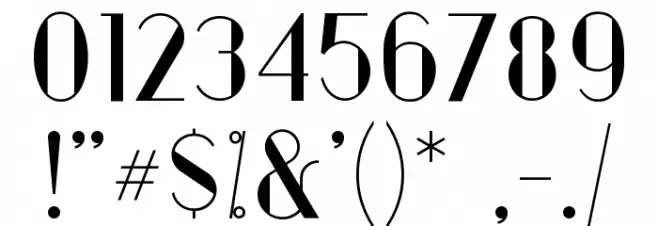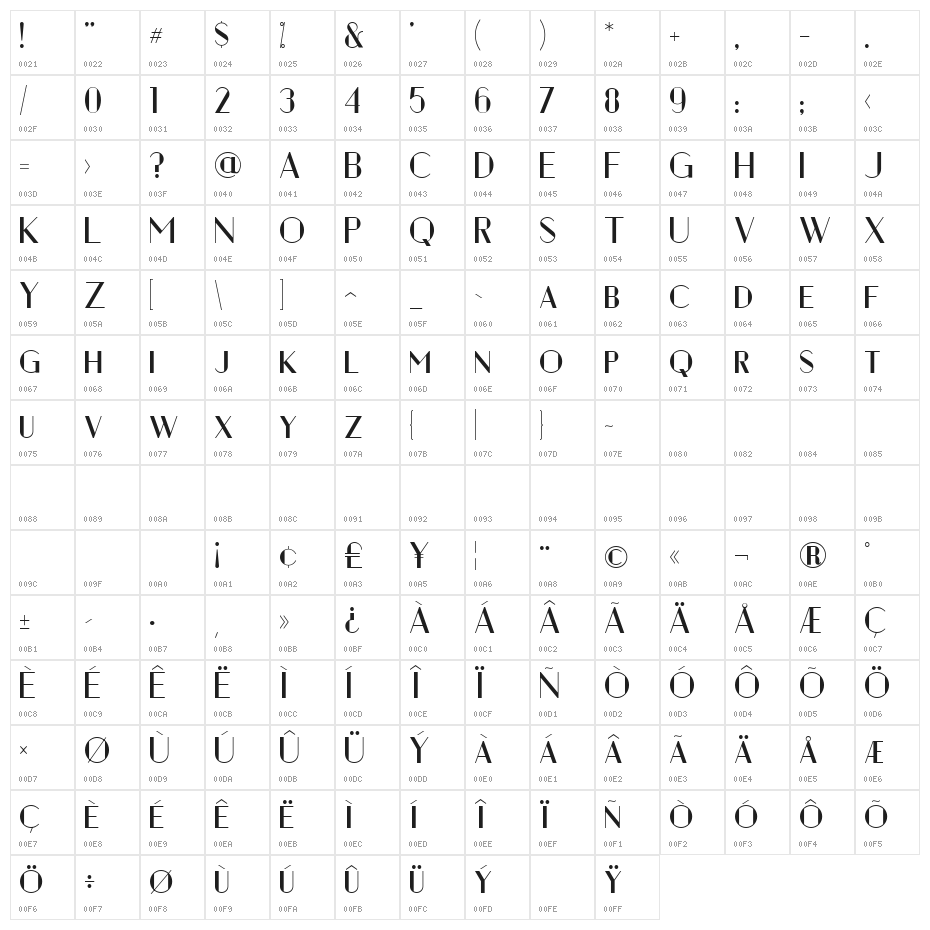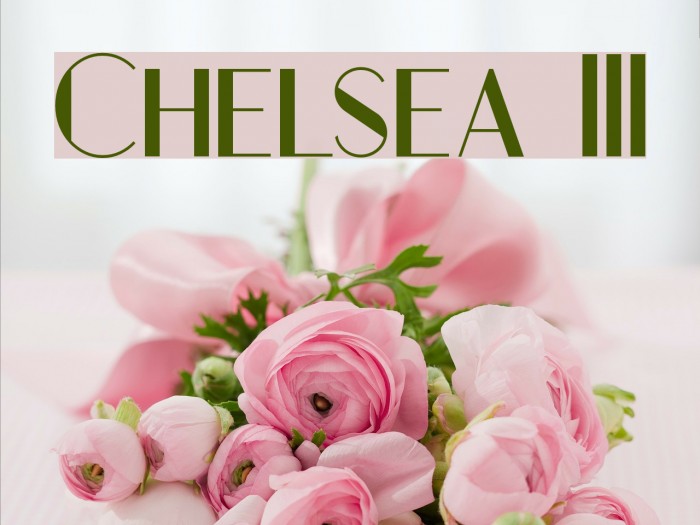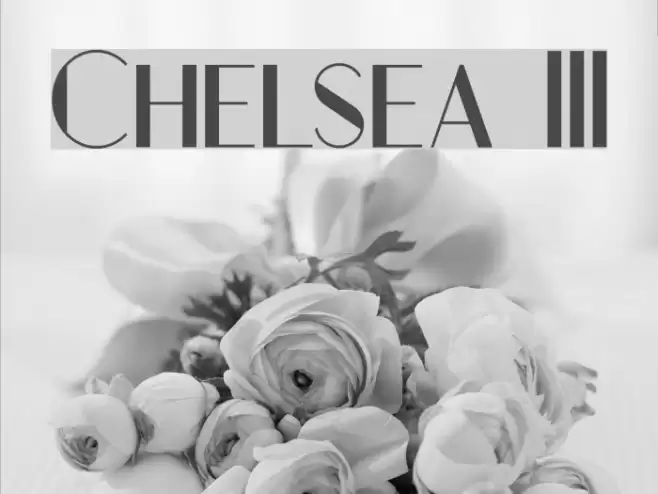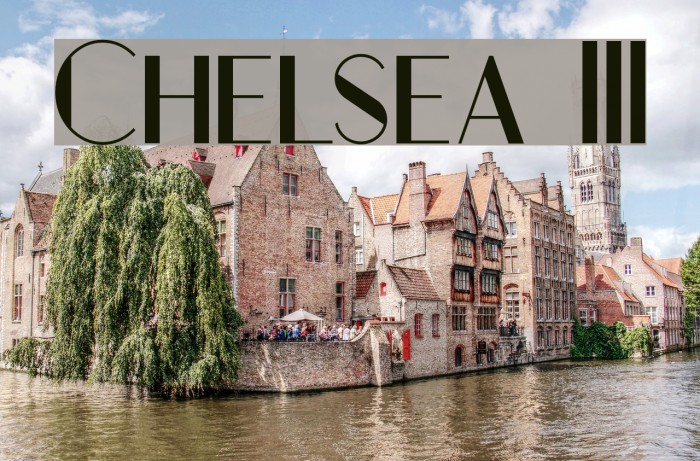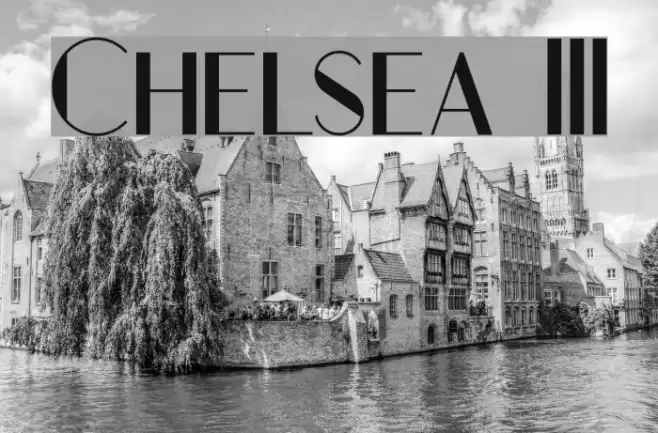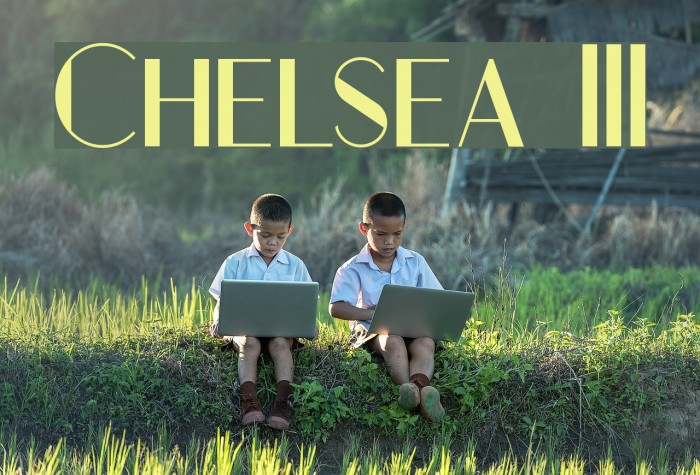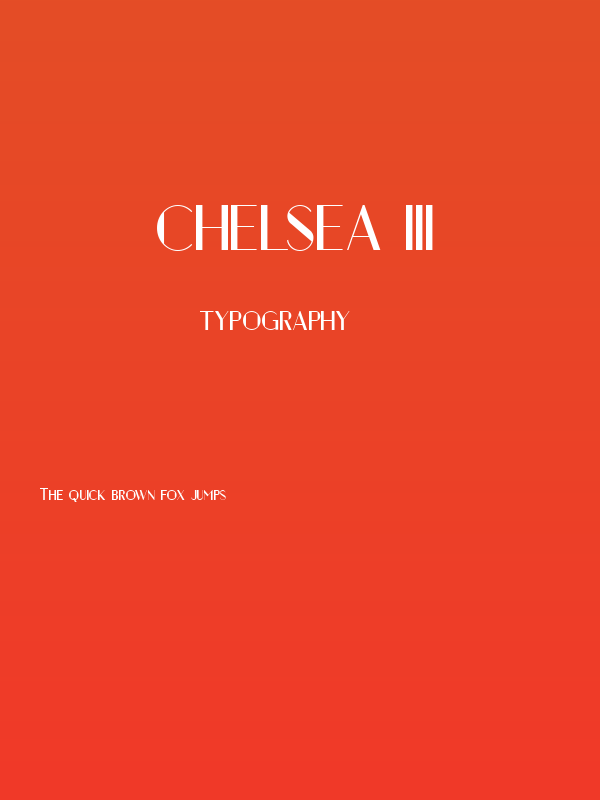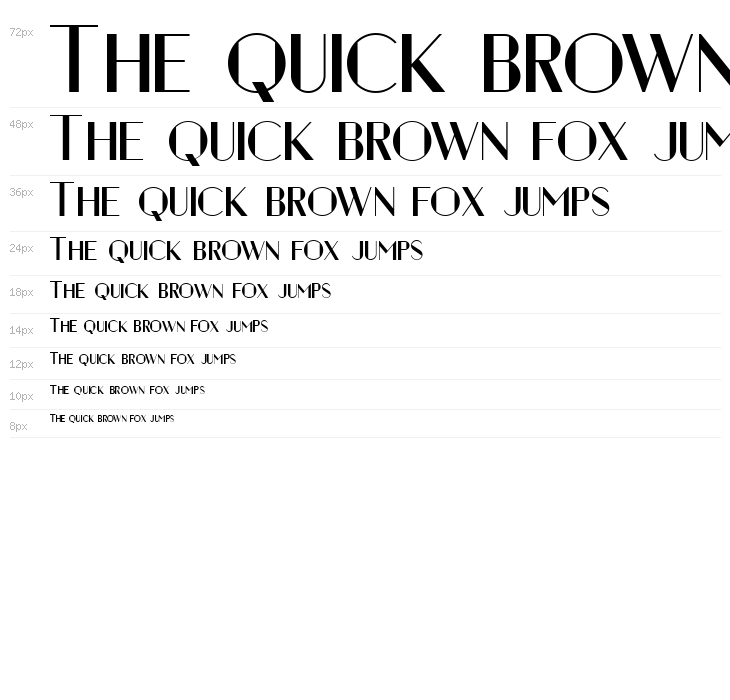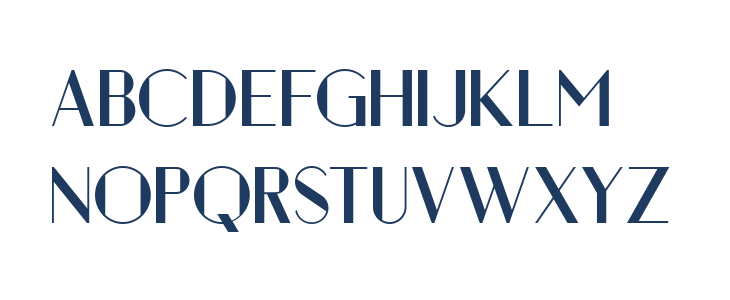
Chelsea III Font
Chelsea III Description
This font features a modern and stylish design with a high contrast between thick and thin strokes, creating a striking visual impact. The uppercase letters are tall and elegant, with sharp angles and clean lines, while the lowercase letters maintain a consistent style with a slightly more rounded appearance. The numerals are bold and distinctive, complementing the overall aesthetic. Special characters are uniquely crafted, adding to the font's versatility. This typeface is perfect for making a bold statement in any design project.
| Proposed Projects | Ideal for branding, editorial design, fashion magazines, and luxury product packaging. |